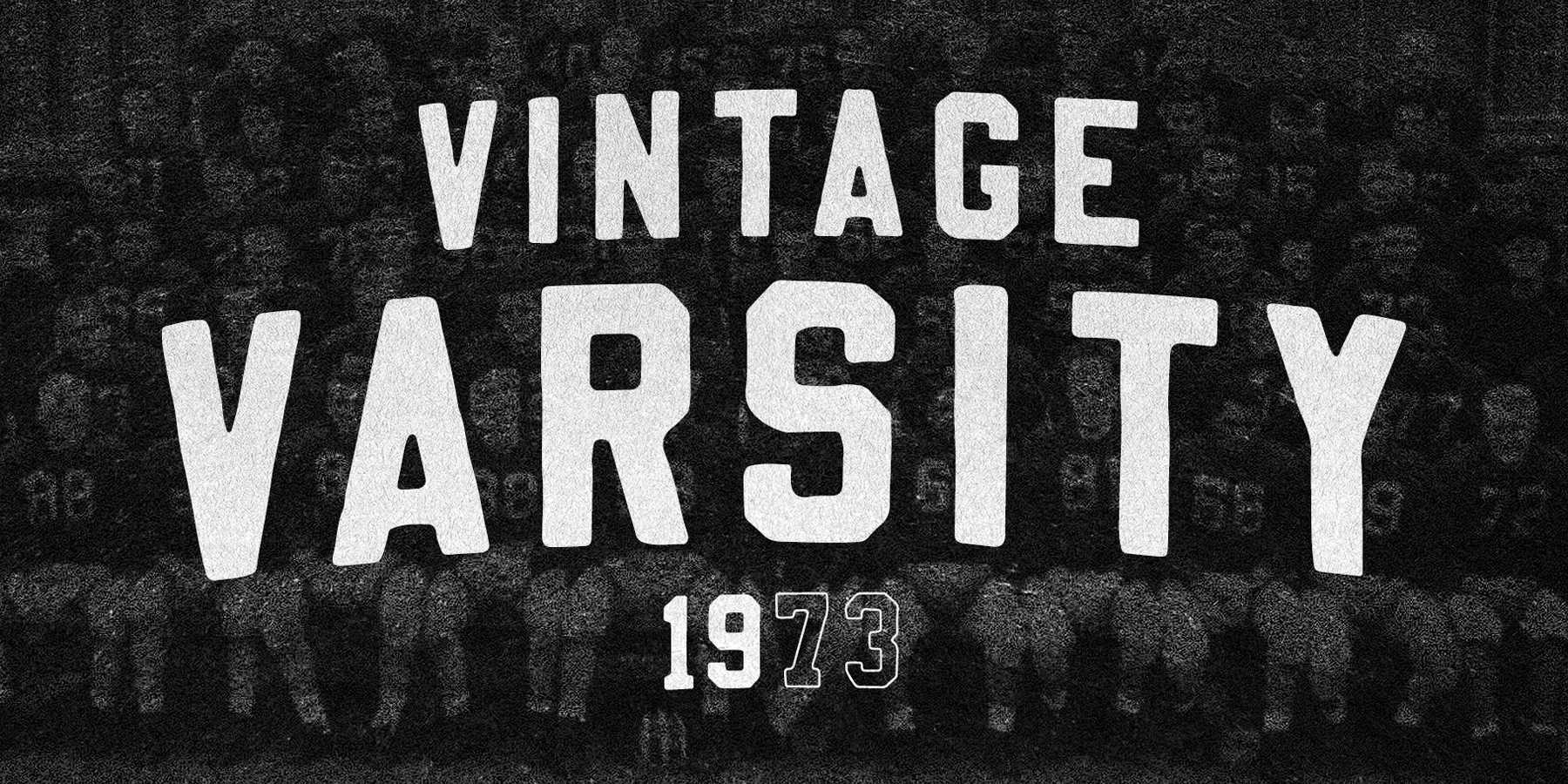
Vintage Varsity Font is perfect for college sports branding, retro athletic team logos, vintage university materials, classic school spirit campaigns, nostalgic alumni communications, traditional varsity jacket designs, heritage academic institutions, old-school sports marketing, classic collegiate merchandise, and timeless educational applications. This distinguished typeface creates authentic vintage atmosphere in both traditional print and digital collegiate platforms.
What makes Vintage Varsity Font exciting is its nostalgic embodiment of classic collegiate tradition with authentic vintage character and timeless school spirit that evokes golden age university culture. The font features traditional letterforms with varsity proportions and vintage athletic character details that capture ivy-covered halls, vintage letterman jackets, and classic campus traditions. Its nostalgic design establishes an atmosphere of academic heritage and collegiate pride that resonates with alumni and students seeking authentic vintage university experience and traditional school spirit.
Vintage Varsity Font family includes collegiate variations: Light, Regular, Medium, Bold, and Champion versions, each with vintage alternates and varsity character sets. Each variant maintains the font's nostalgic personality while providing designers with classic options for creating vintage typography systems and collegiate communication materials.
This exceptional vintage typeface brings authentic academic credibility to projects requiring nostalgic presentation. Whether you're designing college brands, vintage sports marketing, or alumni event materials, Vintage Varsity Font Free Download delivers outstanding nostalgia and collegiate sophistication. The font's vintage proportions and varsity details ensure memorable academic connection across various collegiate applications.
Universities and athletic departments recognize how Vintage Varsity Font perfectly captures the essence of classic collegiate tradition and vintage school spirit. Its nostalgic foundation combined with authentic varsity character makes it essential for collegiate and vintage athletic design projects. Download today and varsity your designs with this exceptionally nostalgic collegiate typography.